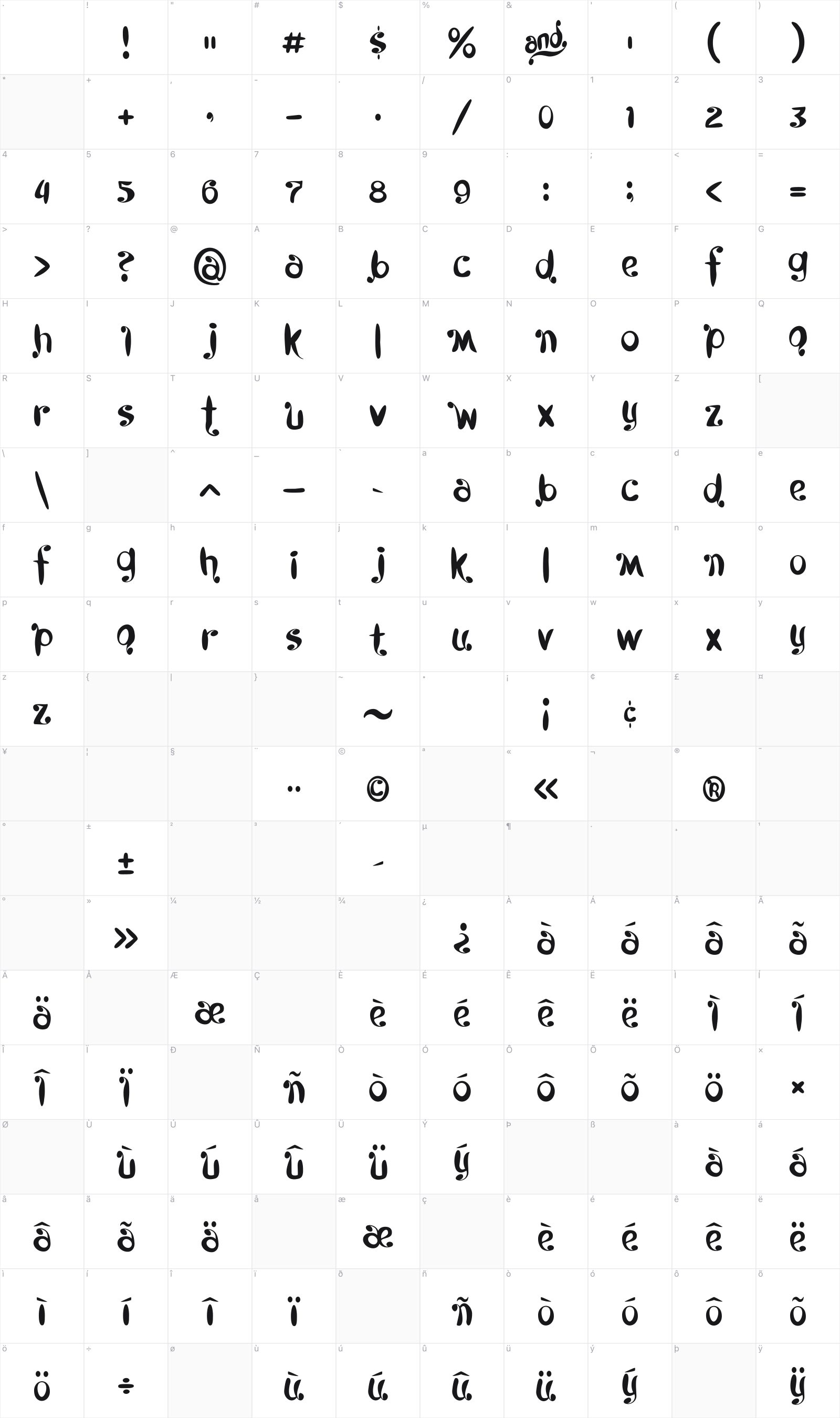
Kyboshed
Kyboshed is a bold, rounded comic display face from Tension Type with chunky letterforms that bounce with cartoonish energy. The quirky shapes and playful weight make it feel like lettering ripped from a Saturday morning animation cel. Built for headlines, posters, and kids' branding where you want big personality and zero seriousness.